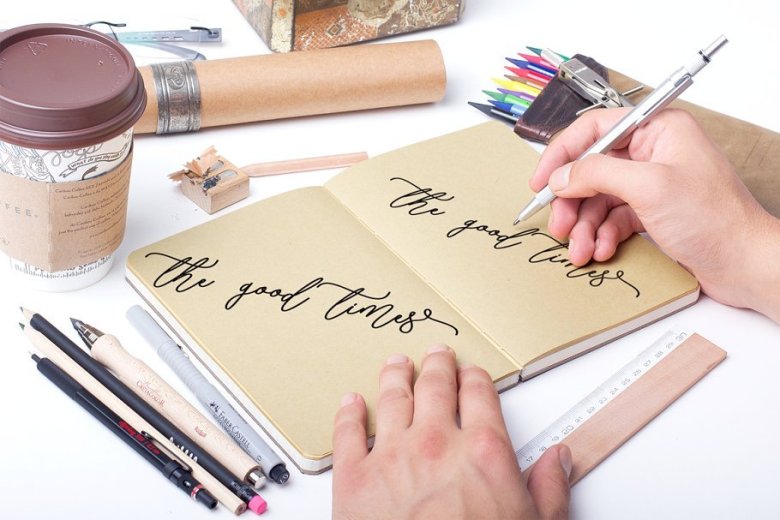
Memories Script Font
This is a modern script with handwriting, decorative characters, and dancing baselines! Introducing Memories Font. Memories Scripts are duo fonts of Memories line and Memories regular stylish calligraphy that have a varied base line, fine lines, classic and elegant touches. Can be used for various purposes. Such as title, signature, logo, wedding invitation, t-shirt, letterhead, nameplate, label, news, poster, badge etc.